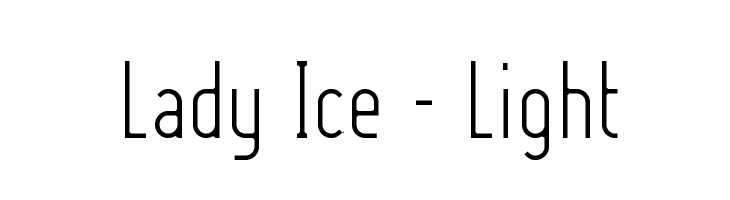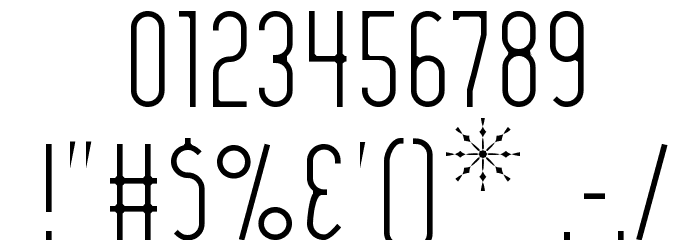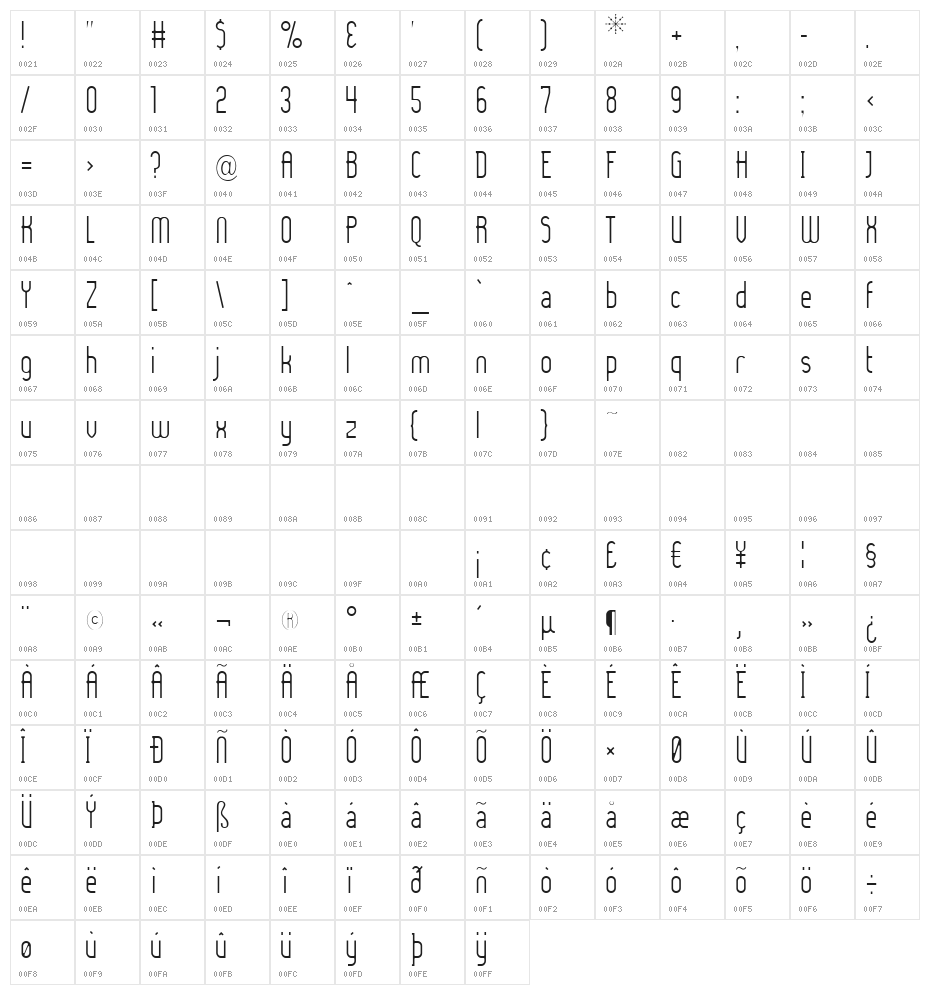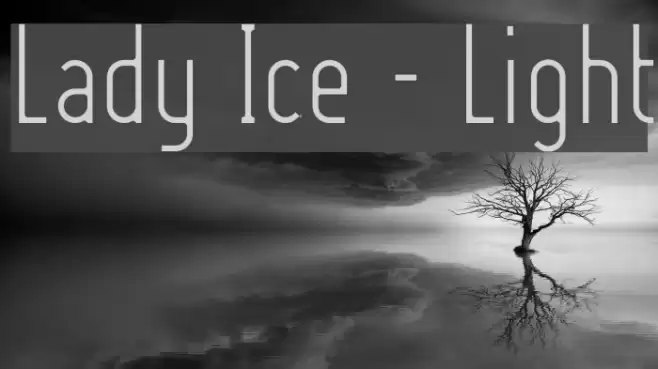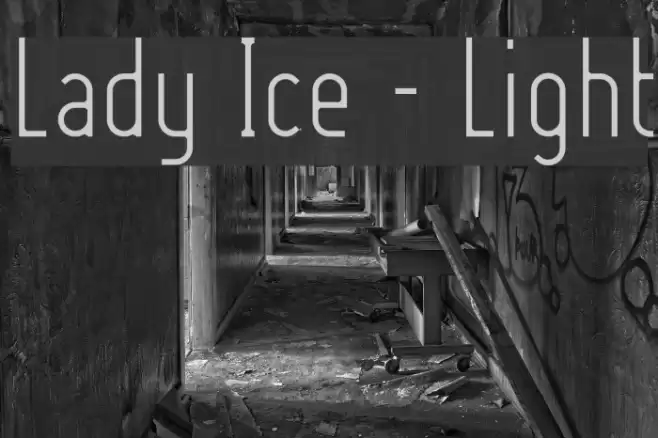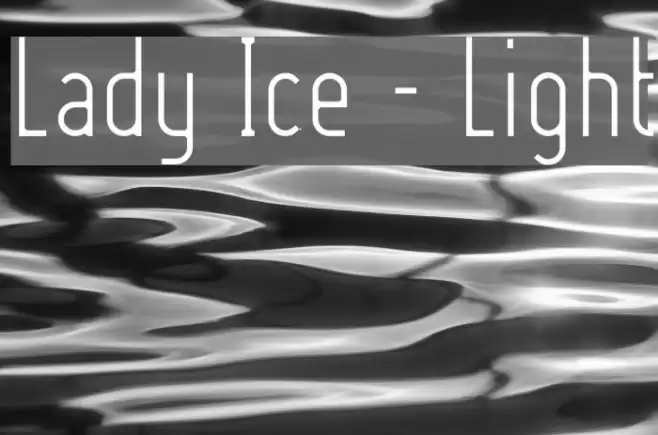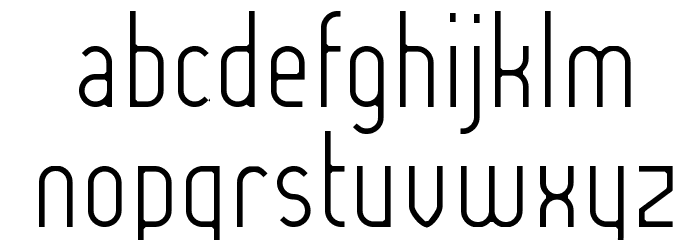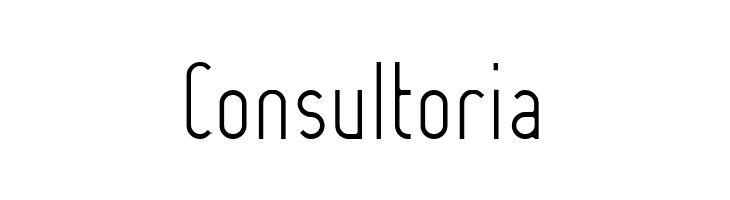
Lady Ice - Light Font
Lady Ice - Light Description
This font features a sleek and modern design with elongated, narrow characters that give it a distinctive and elegant appearance. The uppercase and lowercase letters maintain a consistent height, contributing to a uniform and streamlined look. The numerals are clear and easy to read, matching the overall aesthetic of the alphabet. Special characters are included, adding versatility for various design needs. The font's thin strokes and minimalistic style make it suitable for contemporary projects where a clean and sophisticated look is desired.
| Proposed Projects | Ideal for modern branding, editorial design, fashion magazines, and minimalist websites. |